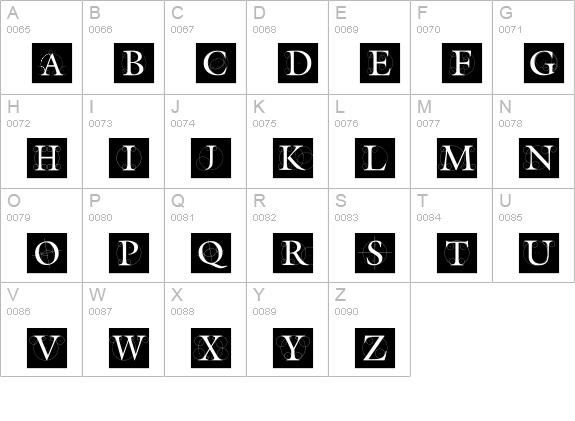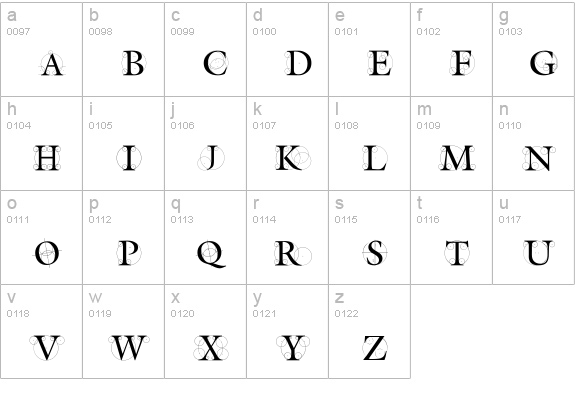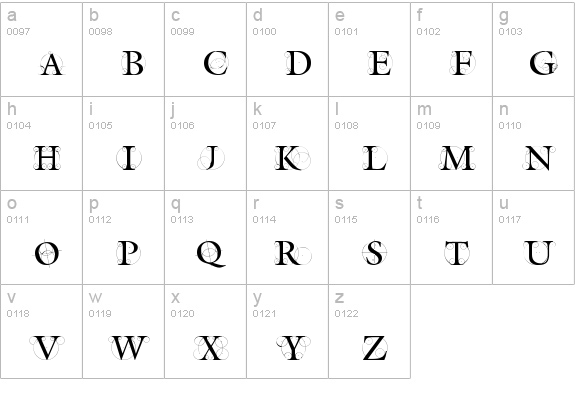
TheRoots Font Details
TheRoots font is a stunning display font that effortlessly combines elegance with a touch of modernity. Crafted with utmost care and attention to detail, this typeface is perfect for a wide range of design projects, from logos and branding to invitations and headlines. What sets TheRoots font apart is not just its aesthetic appeal, but also its versatility. With a variety of letterforms that seamlessly blend together, this font offers numerous options to create unique and captivating designs. Whether you're aiming for a bold and impactful look or a more refined and sophisticated vibe, TheRoots font has got you covered. But the best part? TheRoots font is absolutely free! Yes, you read that right. This incredible font is freely available to download at FontsMarket.com. Now, you can add a touch of class and style to your design projects without breaking the bank. So why wait? Don't miss out on the opportunity to enhance your designs with TheRoots font. Download it today and let your creativity soar.